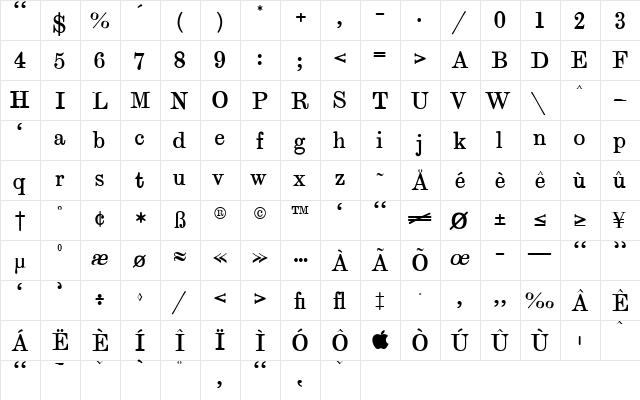
grebe Semi-expanded Medium
| Foundry | loosy (fabian pfeifhofer) |
Design Context for grebe Typeface
grebe is a composed and adaptable typeface that performs quietly and consistently across a wide range of design contexts.